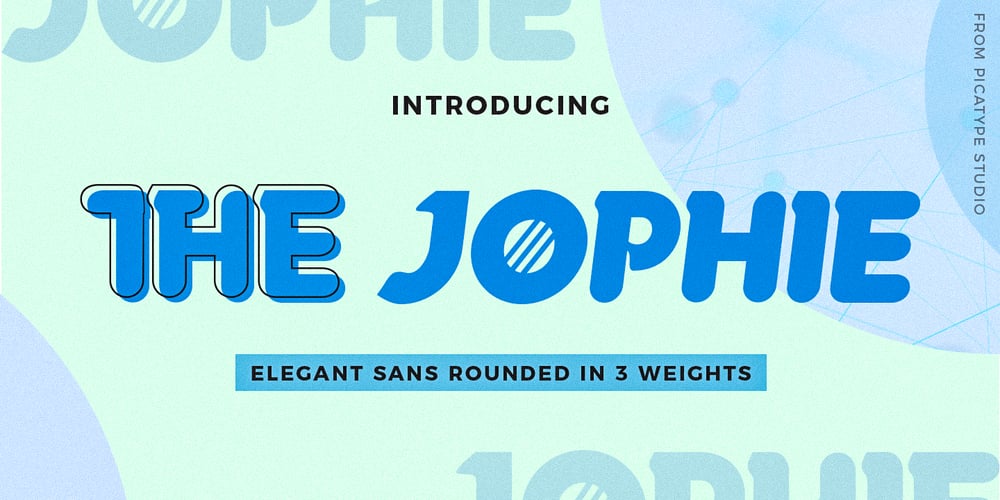
The Jophie Sans Font Family was designed by Akmal Yusar and published by Picatype. The Jophie Sans contains 3 styles and family package options. Introducing The fashionable Jophie Modern round font display.I try to make the family font as much as possible The round and diagonal versions are great for applications that are more friendly and fun and as the name suggests. You can uniquely stack various parts of this font making it very fun to use together 🙂 The Jophie includes 3 regular, italic, outline, clean and modern fonts, thus creating more variability. The Jophie sans that cannot be blamed for diversifying your headlines, visual identity branding, posters, logos, magazines, etc.What’s Included The Jophie Regular The Jophie Italic The Jophie Outline Thank for looking, and I hope you enjoy it.